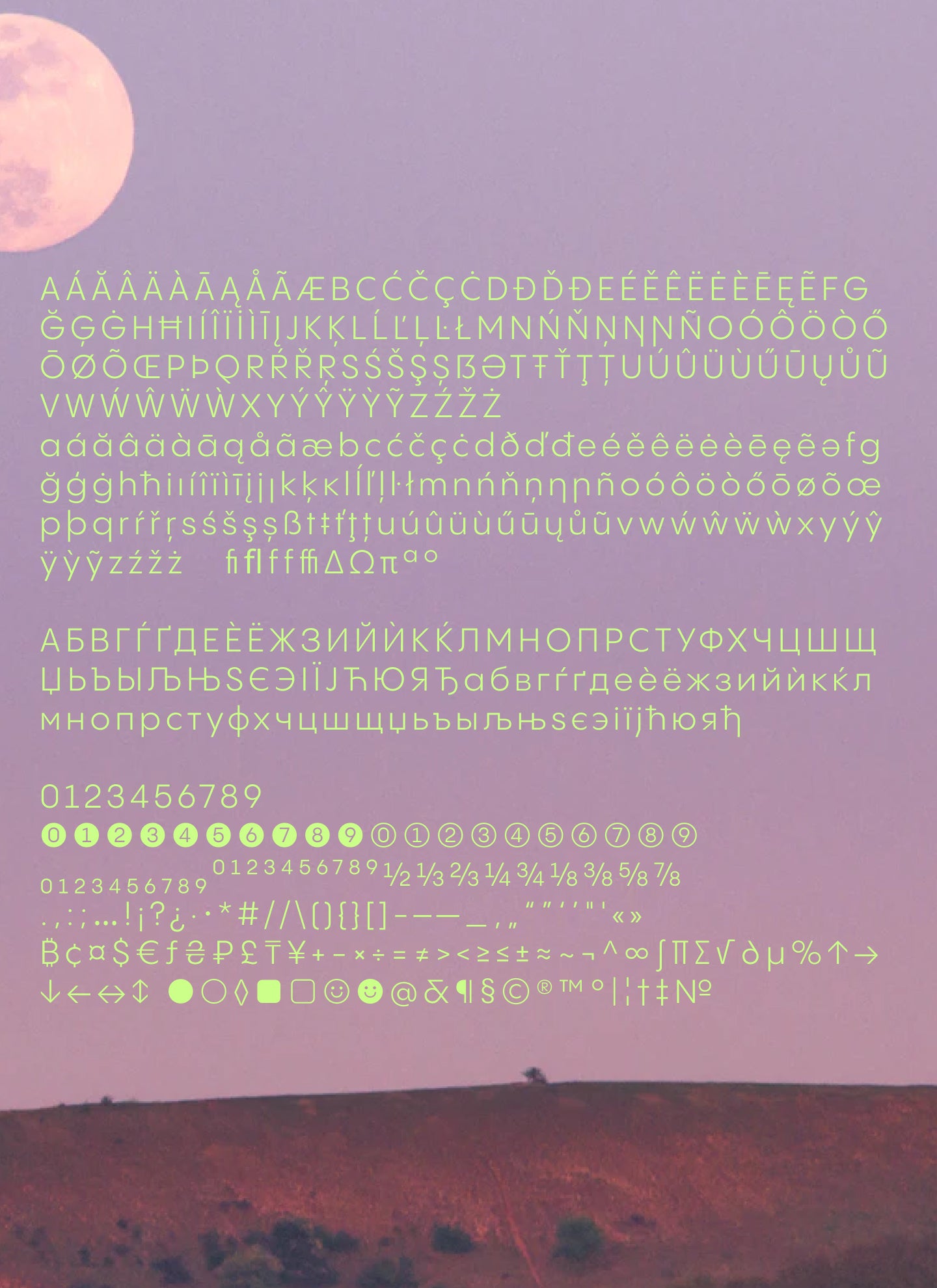
Pangram Sans Normal
From laid-back recline to sharp italics, this font doesn’t just flex, it pivots.
Pangram Sans
Normal Family
Pangram Sans Normal's Features
Clean. Confident. Consistent.
Pangram Sans is a powerful and extensive geometric workhorse. It was designed to be as bold and intense as it can be subtle and flexible
We took this free to try geometric sans to a whole new level with a fully variable slanting, from Reclined to Italic. It also includes support for the Cyrillic Alphabet. Inspired by some of the greatest geometric typefaces this complete font family will surely be your next “go to” font to uplift your designs.
24 Styles with 772 Glyphs each
Including Italic and Cyrillic Support